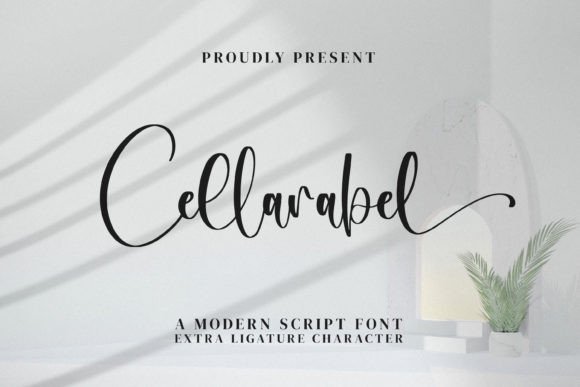
Prepare yourself to be captivated by Cellarabel, a font that epitomizes elegance and charm. Its beautifully crafted strokes, inspired by the handwritten notes of old, evoke a sense of nostalgia and heartfelt connection. Let Cellarabel be the voice of your creative expression, whether it's designing wedding invitations, greeting cards, or crafting posters that exude a touch of vintage allure.
Step into a realm of boundless creativity, where Cellarabel's versatility knows no bounds. Its script-like design lends an air of sophistication to any project, making it a perfect choice for creating logos, branding materials, or social media graphics that demand attention. With Cellarabel by your side, your designs will radiate a unique charm that sets them apart from the ordinary.
Unleash your imagination and explore the endless possibilities that Cellarabel presents. Its delicate strokes and flowing curves add a touch of whimsy and delight to any project. Imagine crafting posters for your upcoming contest, where the words dance across the page, captivating the attention of all who behold them. Cellarabel has the power to transform your designs into works of art that leave a lasting impression.
Enter the world of Cellarabel, a font that evokes a symphony of emotions. Its graceful lines and timeless appeal create a sense of warmth and intimacy, making it the ideal choice for crafting heartfelt messages and personal invitations. Let Cellarabel carry your words with grace and elegance, leaving a lasting impact on the hearts of your loved ones.